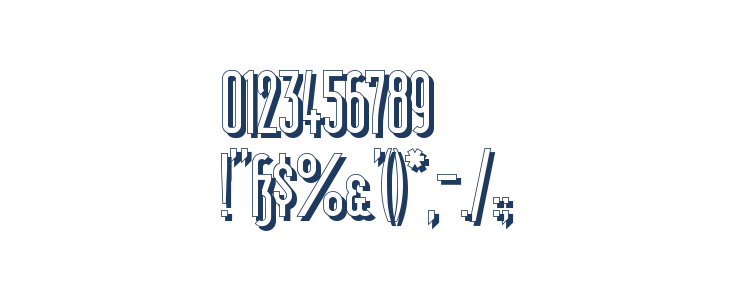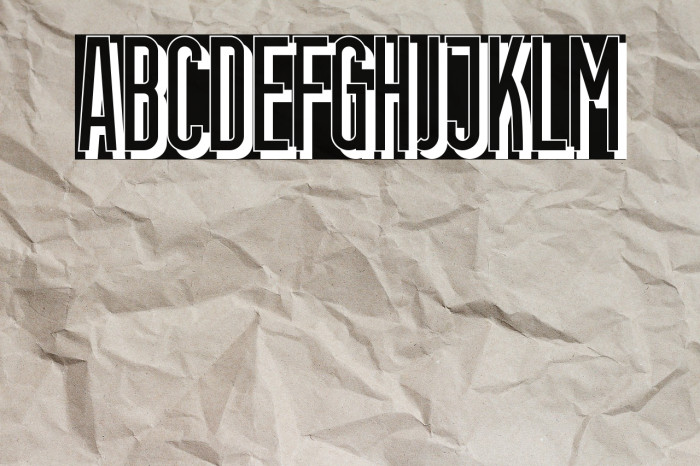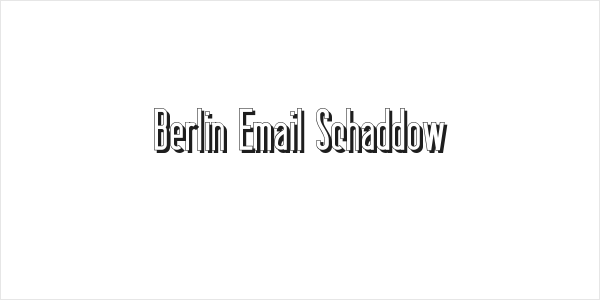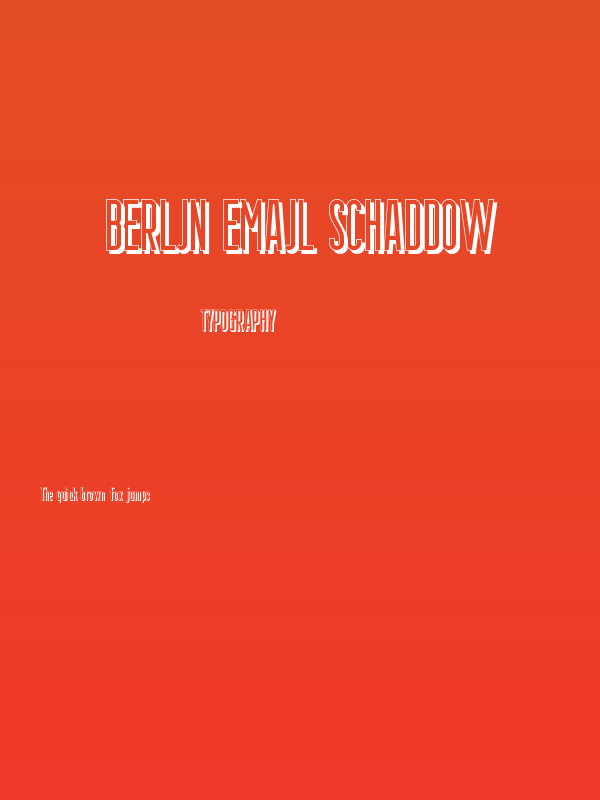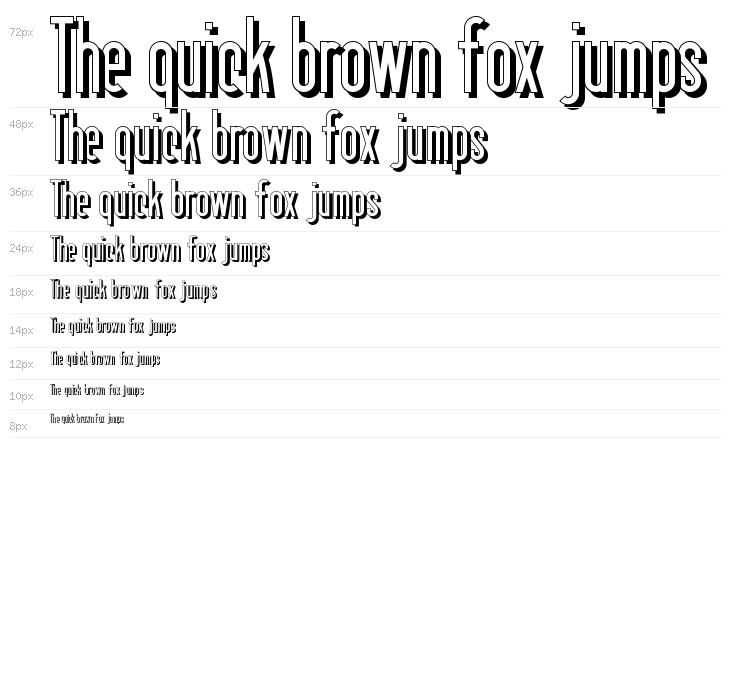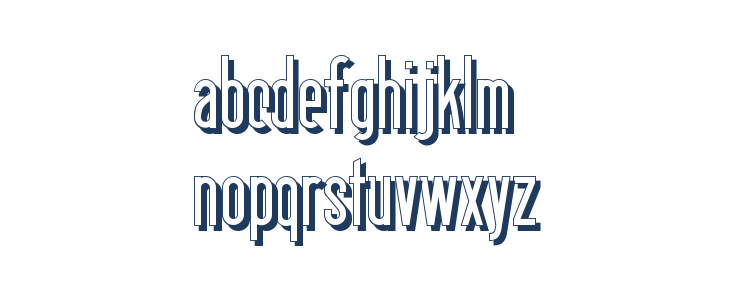
Berlin Email Schaddow Font
Berlin Email Schaddow Description
This font features a bold, geometric design with a strong shadow effect that gives it a three-dimensional appearance. The uppercase and lowercase letters are uniformly structured, with clean lines and sharp angles, creating a modern and impactful look. The numbers and special characters maintain the same boldness and shadow, ensuring consistency across all elements. The shadow adds depth, making it ideal for eye-catching designs. The overall style is both contemporary and retro, suitable for projects that require a standout, dynamic typeface.